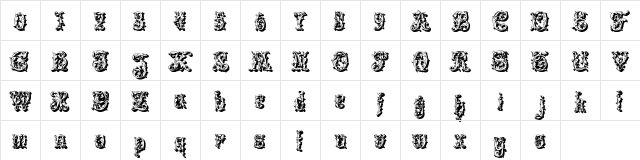
Leafyshade Regular
Design Context for Leafyshade
Leafyshade is a composed and adaptable typeface that performs quietly and consistently across a wide range of design contexts.
Pro Tip: Use Leafyshade in both headline and body roles to test its range before committing to a single application.